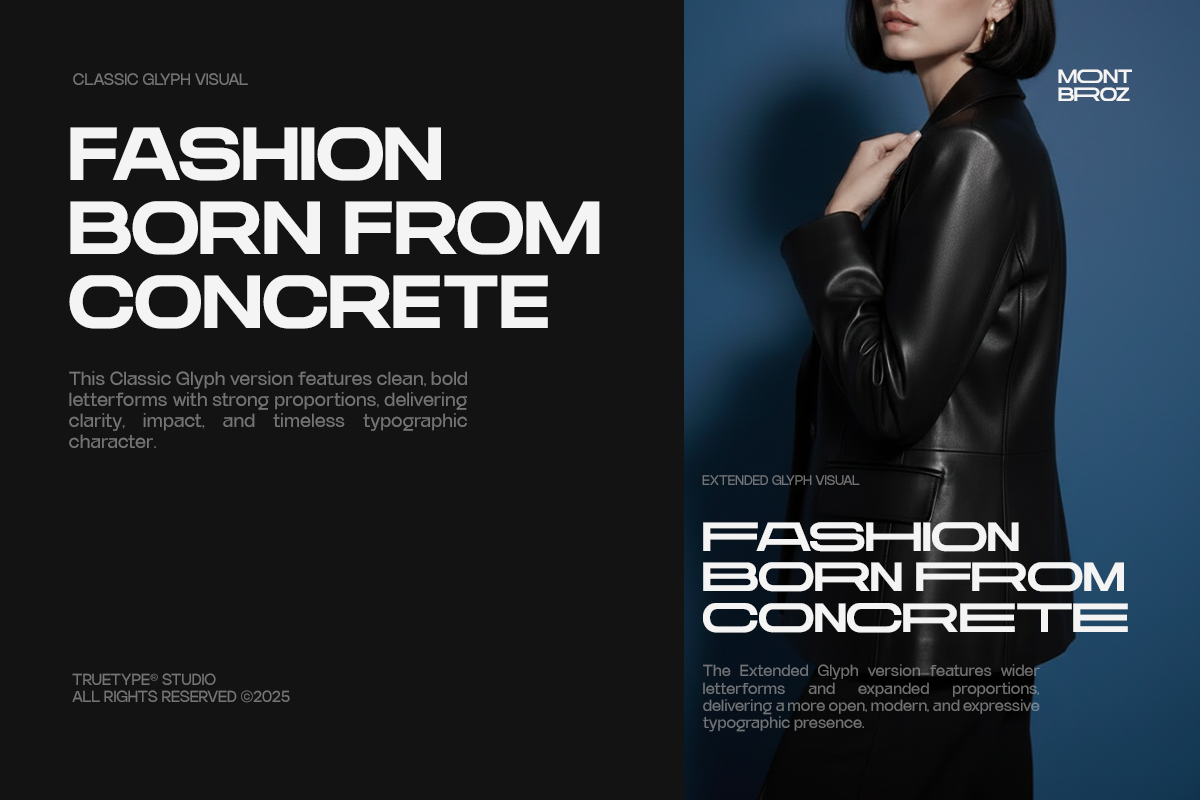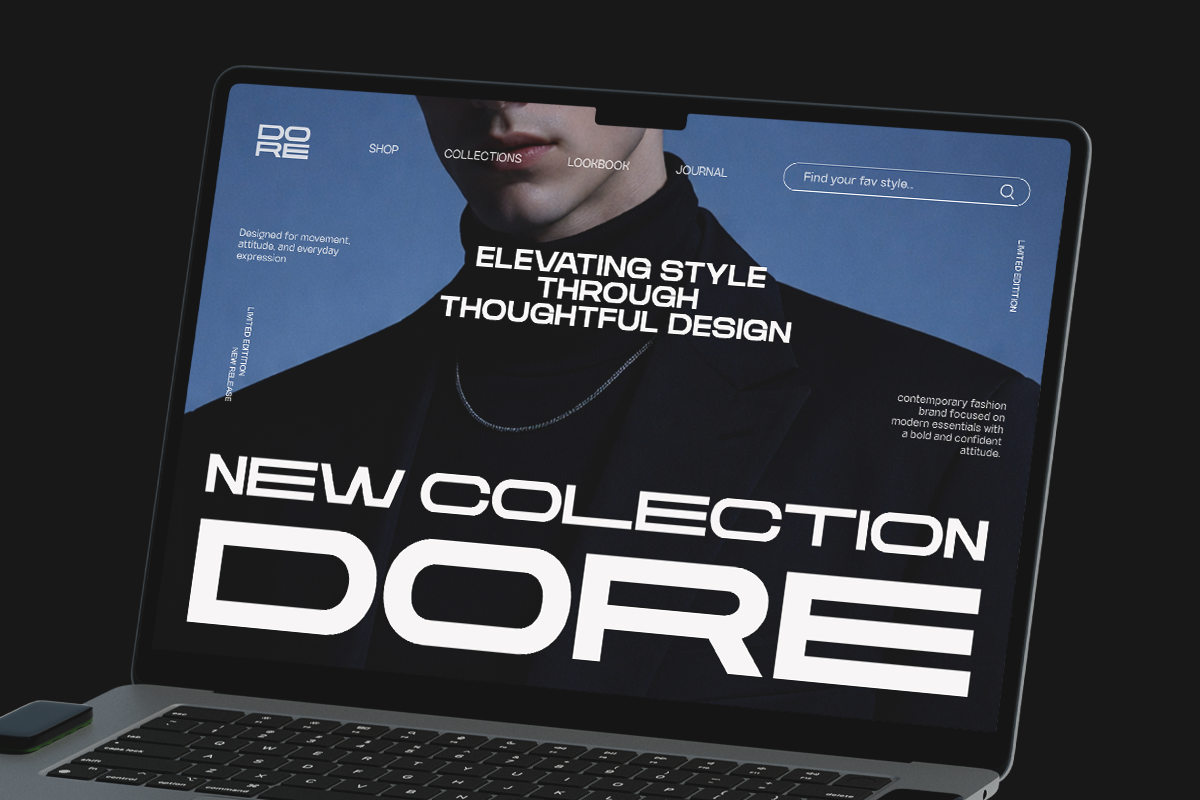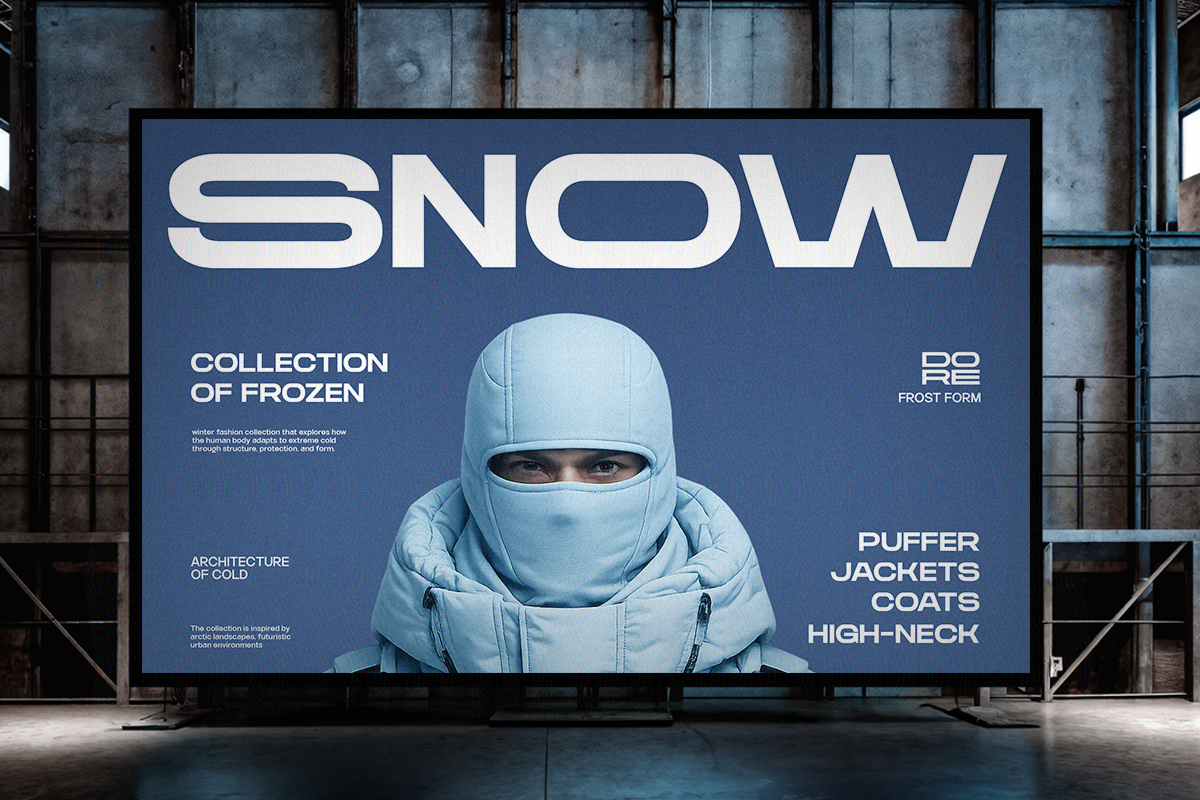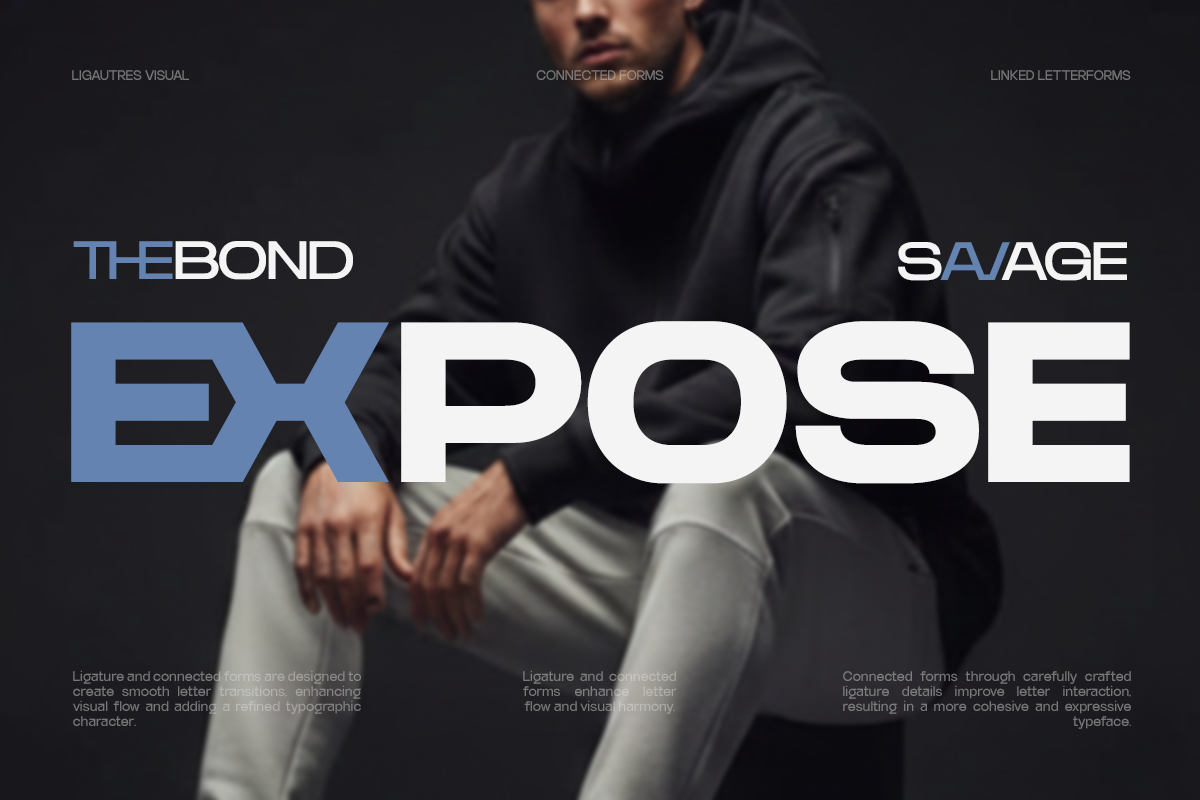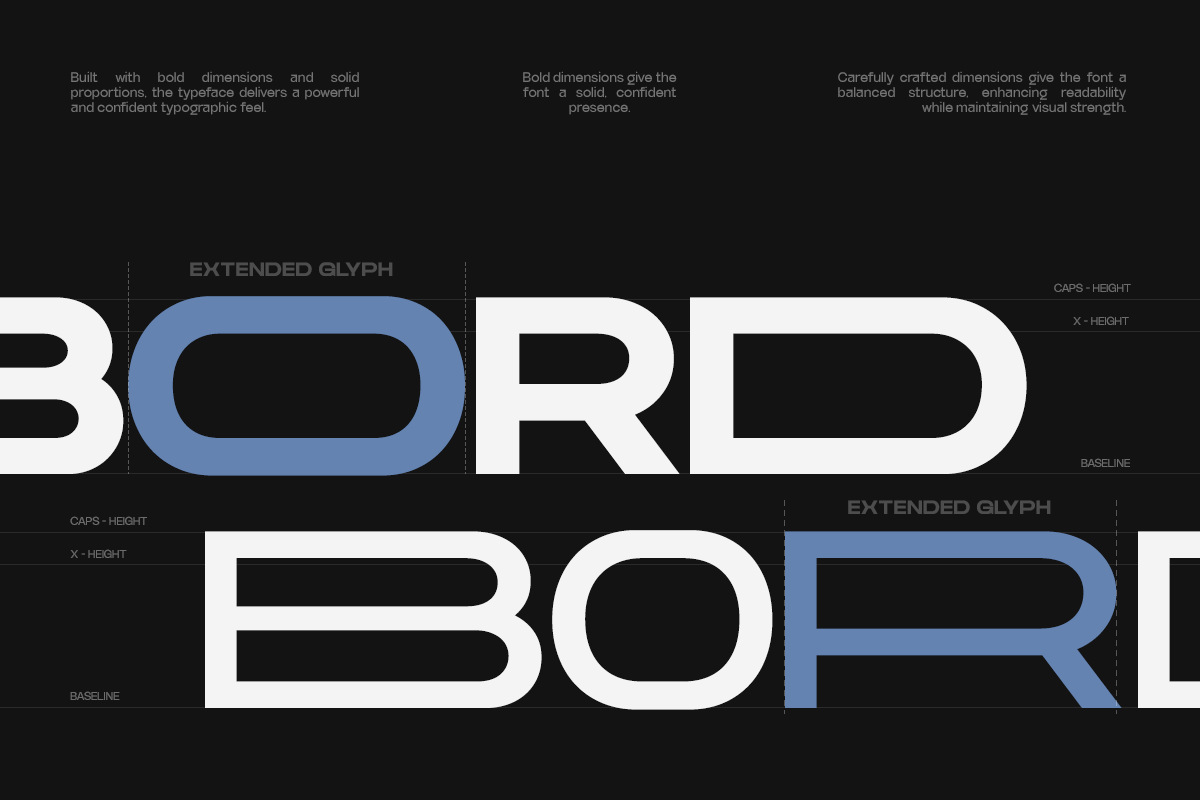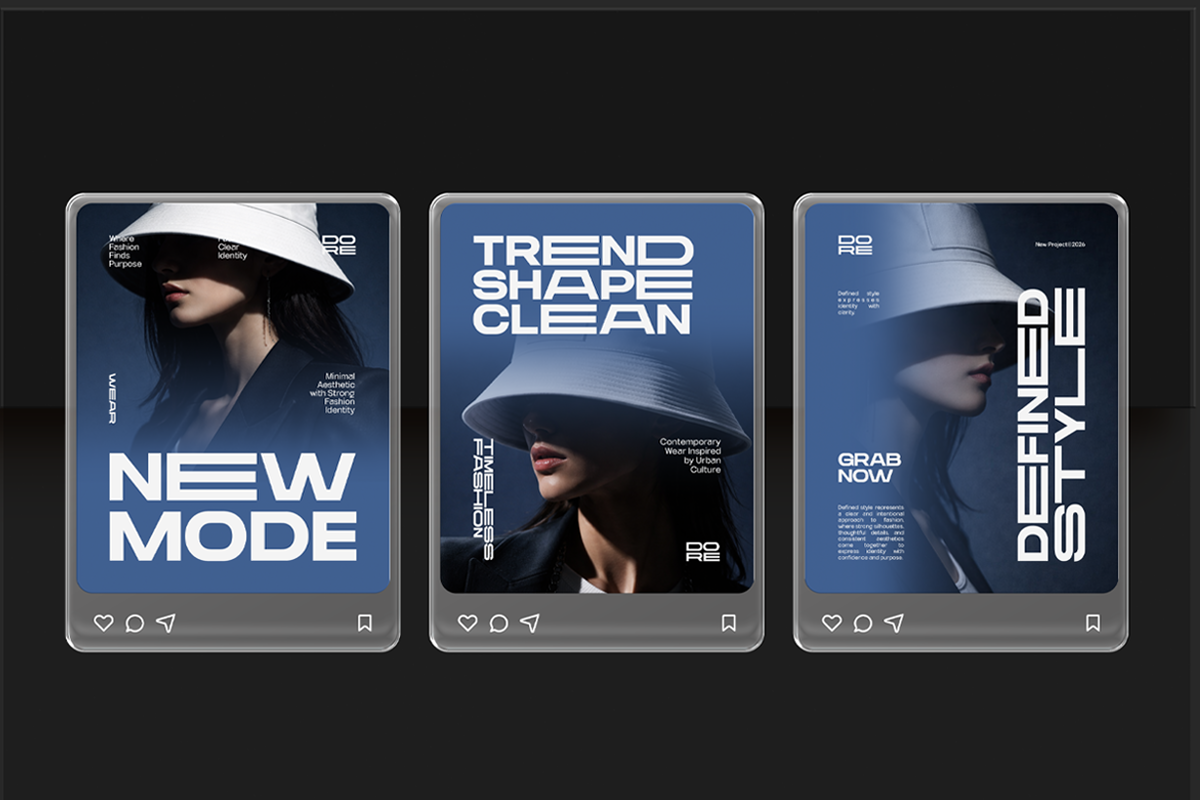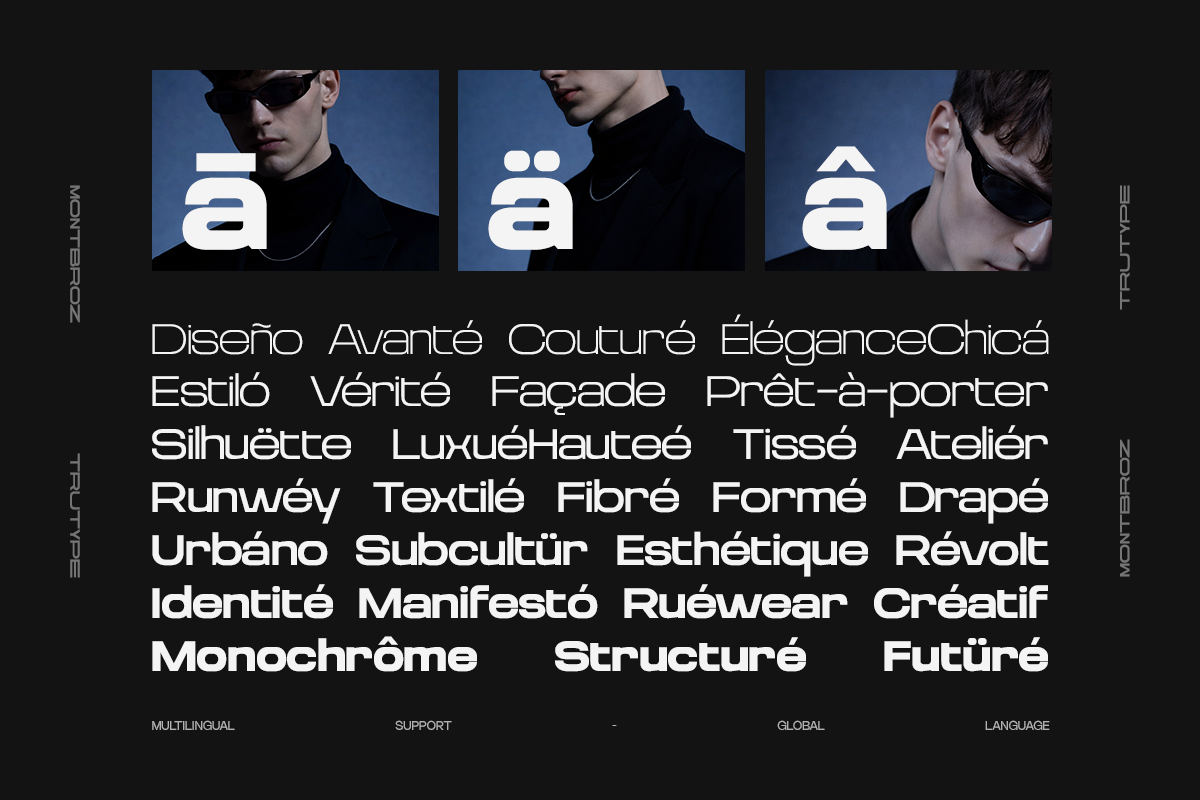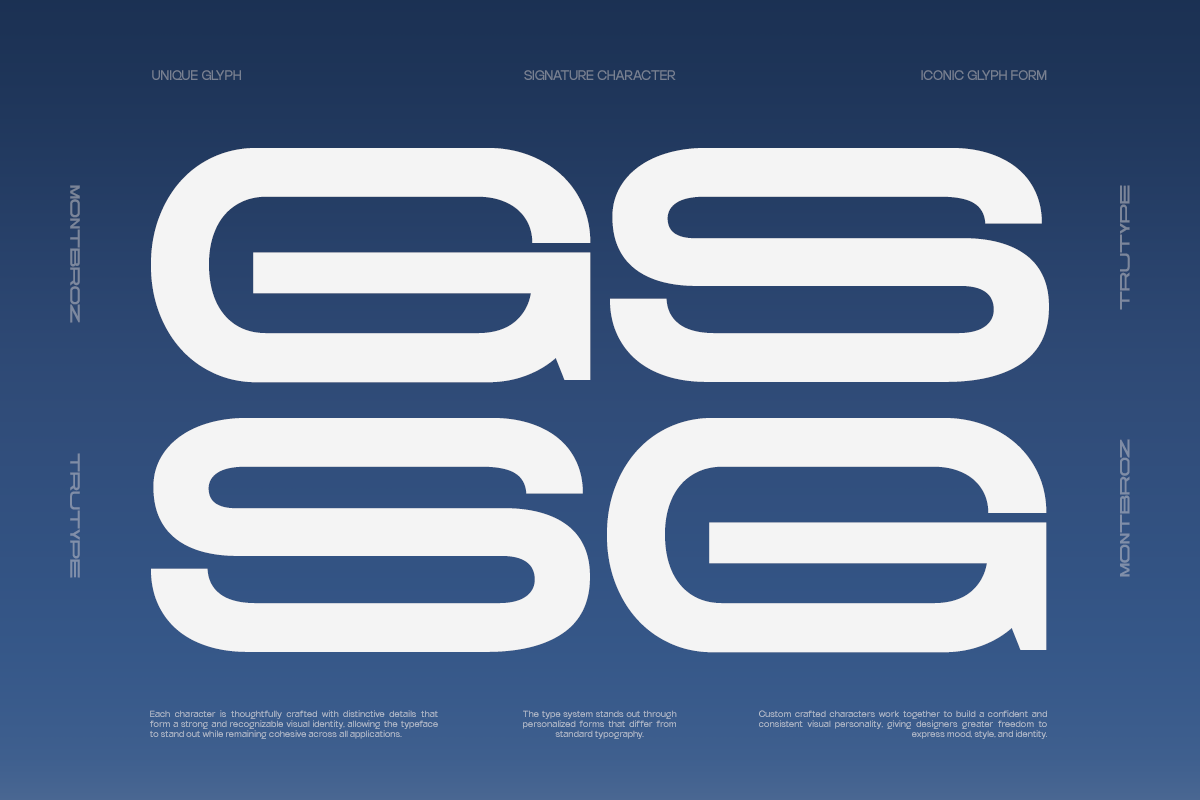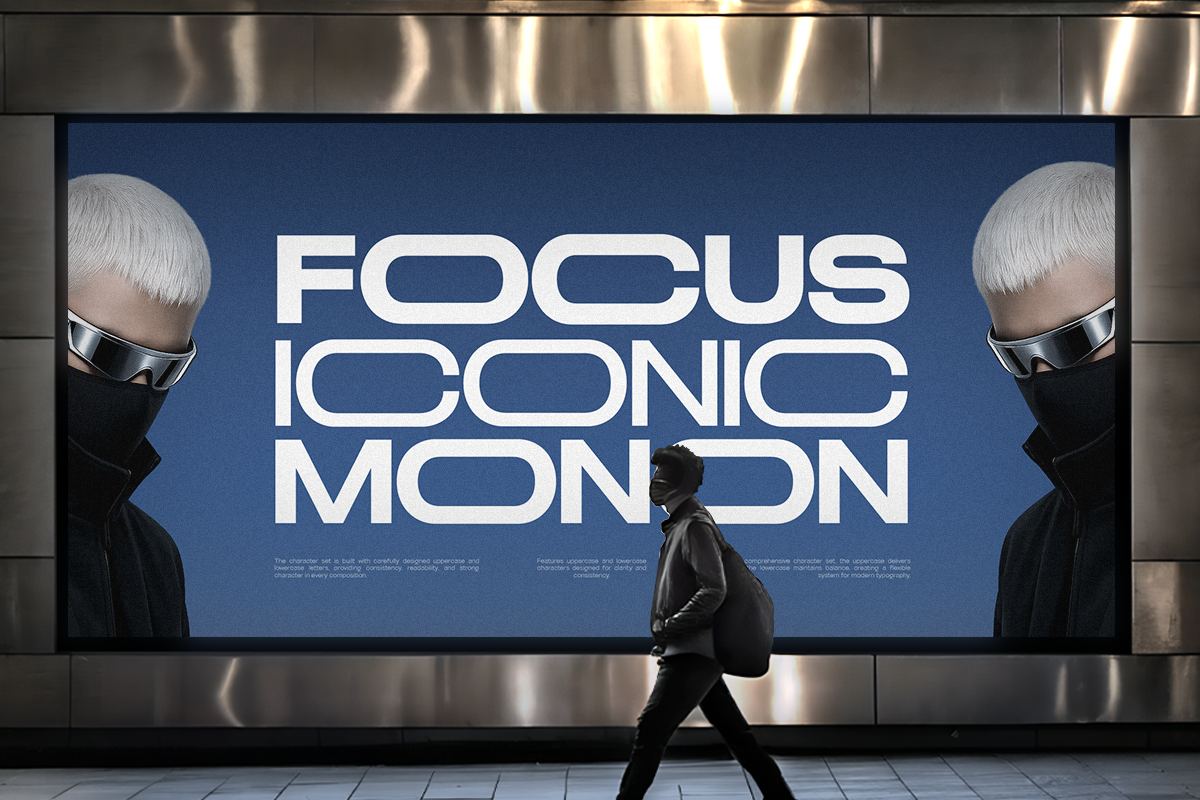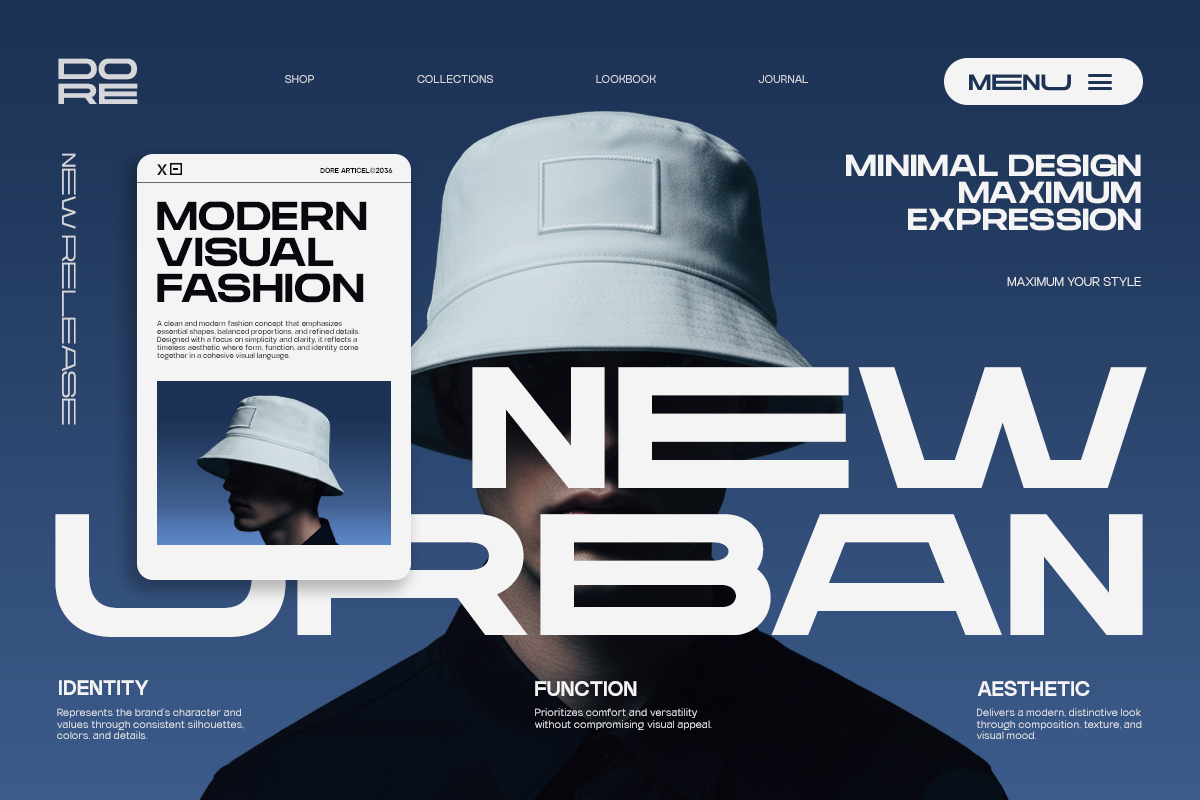
TRT Mont Broz Bold Modern Sans
TRT Mont Broz is a bold modern geometric sans serif display typeface designed for strong visual impact in contemporary editorial and branding systems. Built with wide proportions, confident geometry, and smooth rounded forms, Mont Broz delivers a powerful yet clean presence for headlines, posters, and large-scale typography.
Inspired by modern editorial layouts and futuristic design language, TRT Mont Broz balances precision and softness to create letterforms that feel solid, modern, and highly legible. Its bold structure and consistent rhythm make it ideal for magazine covers, branding identities, posters, packaging, and visual statements that demand attention.
Designed primarily for display use, Mont Broz excels in headlines, titles, and visual hierarchy applications. The font performs strongly across print and digital environments, maintaining clarity and impact in both light and dark backgrounds.
With multiple weights and variable font support, TRT Mont Broz offers flexibility for designers working in editorial design, branding systems, motion graphics, and modern graphic compositions. The typeface communicates a bold, modern, and confident voice perfect for contemporary visual storytelling.